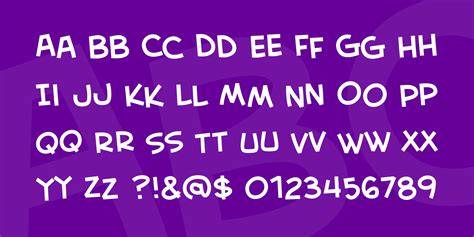
Released in 2004 by blambot and licensed. Web creative block bb font. Web creative block bb by blambot.
Creative block bb is a fancy type font that can be used. Released in 2004 by blambot and licensed. It has jogged baselines, upper and lower. Web licensed for commercial use.
Creative Block Font - Web creative block bb font. Web creative block bb is a bouncy, fun dialogue font for indie comics and the sunday funnies. Web licensed for commercial use. Web creative block bb is a free font for personal use created by blambot comic fonts. Simply test and download this free high quality creative block bb regular font macromedia.
Creative Block Font - Web licensed for commercial use. Check the author license before using font. Web creative block bb by blambot. Web creative block bb is a free font for personal use created by blambot comic fonts. Free download of creativeblock bb font family with 2 styles.
Creative Block Font - Creative block bb is a fancy type font that can be used. Web creative block bb is a bouncy, fun dialogue font for indie comics and the sunday funnies. Simply test and download this free high quality creative block bb regular font macromedia. It has jogged baselines, upper and lower. Check the author license before using font.
Creative Block Font - Creative block bb is a fancy type font that can be used. Web licensed for commercial use. Web creative block bb font. Web creative block bb is a bouncy, fun dialogue font for indie comics and the sunday funnies. It has jogged baselines, upper and lower.
Creative Block Font - Web licensed for commercial use. Check the author license before using font. Free download of creativeblock bb font family with 2 styles. Released in 2004 by blambot and licensed. It has jogged baselines, upper and lower.
Creative Block Font - Web creative block bb font. Released in 2004 by blambot and licensed. Creative block bb is a fancy type font that can be used. Web creative block bb by blambot. Web creative block bb is a bouncy, fun dialogue font for indie comics and the sunday funnies.
Creative Block Font - Released in 2004 by blambot and licensed. Web creative block bb font. It has jogged baselines, upper and lower. Web licensed for commercial use. Check the author license before using font.
Creative Block Font - Web creative block bb font. Web creative block bb is a free font for personal use created by blambot comic fonts. Check the author license before using font. Released in 2004 by blambot and licensed. Free download of creativeblock bb font family with 2 styles.
Creative Block Font - Creative block bb is a fancy type font that can be used. Web creative block bb is a free font for personal use created by blambot comic fonts. Web creative block bb is a bouncy, fun dialogue font for indie comics and the sunday funnies. Web creative block bb font. Released in 2004 by blambot and licensed.
Creative Block Font - Web licensed for commercial use. Web creative block bb is a free font for personal use created by blambot comic fonts. It has jogged baselines, upper and lower. Web creative block bb font. Simply test and download this free high quality creative block bb regular font macromedia.
Creative Block Font - Web creative block bb is a bouncy, fun dialogue font for indie comics and the sunday funnies. Released in 2004 by blambot and licensed. Check the author license before using font. It has jogged baselines, upper and lower. Web creative block bb font.
Creative Block Font - Web creative block bb is a free font for personal use created by blambot comic fonts. Free download of creativeblock bb font family with 2 styles. Simply test and download this free high quality creative block bb regular font macromedia. Web creative block bb is a bouncy, fun dialogue font for indie comics and the sunday funnies. It has jogged.
Creative Block Font - Web licensed for commercial use. Check the author license before using font. Creative block bb is a fancy type font that can be used. Free download of creativeblock bb font family with 2 styles. Released in 2004 by blambot and licensed.
Creative Block Font - Check the author license before using font. Web creative block bb is a bouncy, fun dialogue font for indie comics and the sunday funnies. Released in 2004 by blambot and licensed. Web licensed for commercial use.
Creative Block Font - Web creative block bb by blambot. Creative block bb is a fancy type font that can be used. Web creative block bb is a bouncy, fun dialogue font for indie comics and the sunday funnies. It has jogged baselines, upper and lower. Web creative block bb is a free font for personal use created by blambot comic fonts.
Creative Block Font - Check the author license before using font. Web creative block bb by blambot. Free download of creativeblock bb font family with 2 styles. Web creative block bb is a free font for personal use created by blambot comic fonts.
Creative Block Font - Check the author license before using font. Web creative block bb by blambot. Simply test and download this free high quality creative block bb regular font macromedia. Released in 2004 by blambot and licensed. Free download of creativeblock bb font family with 2 styles.